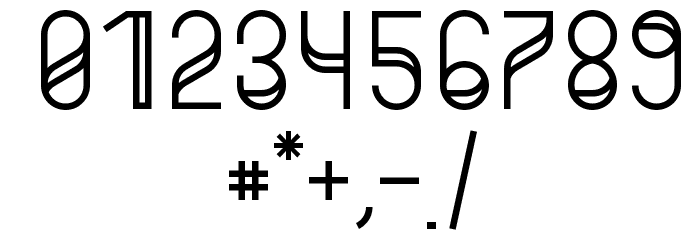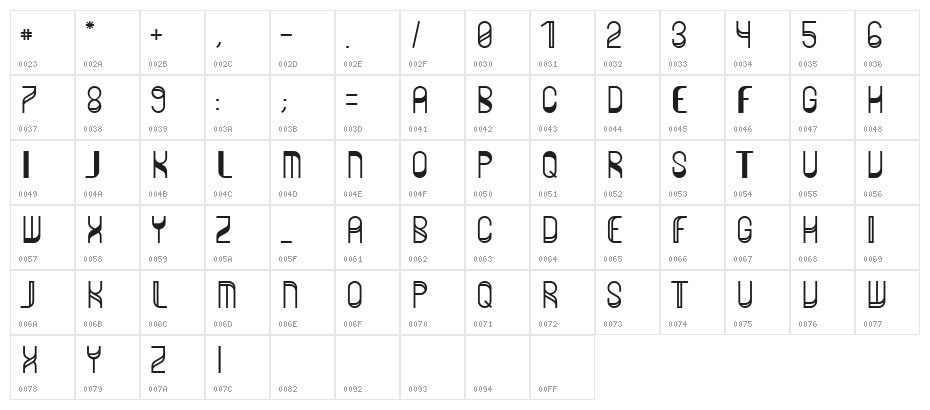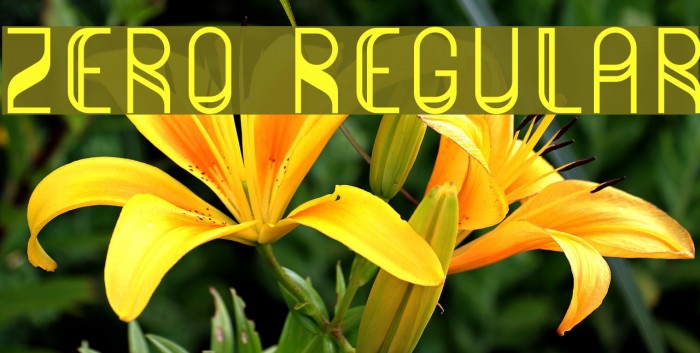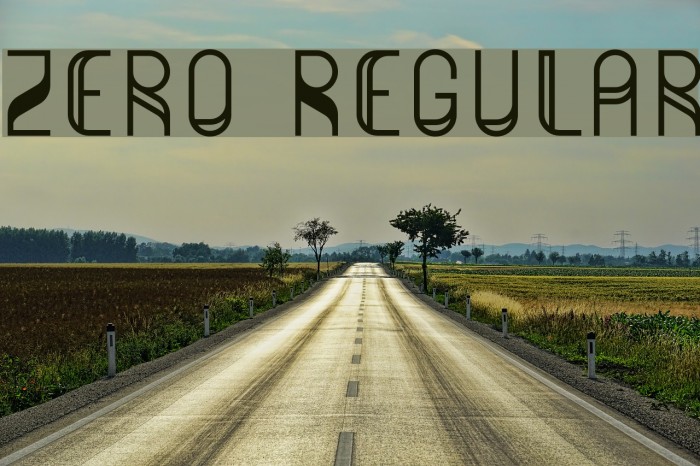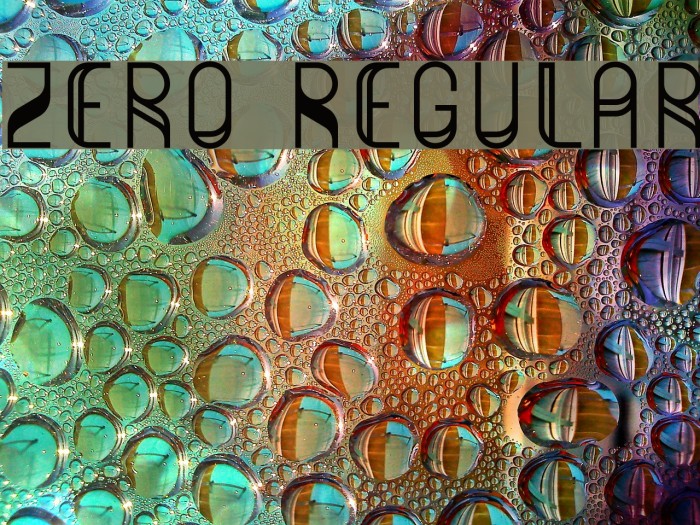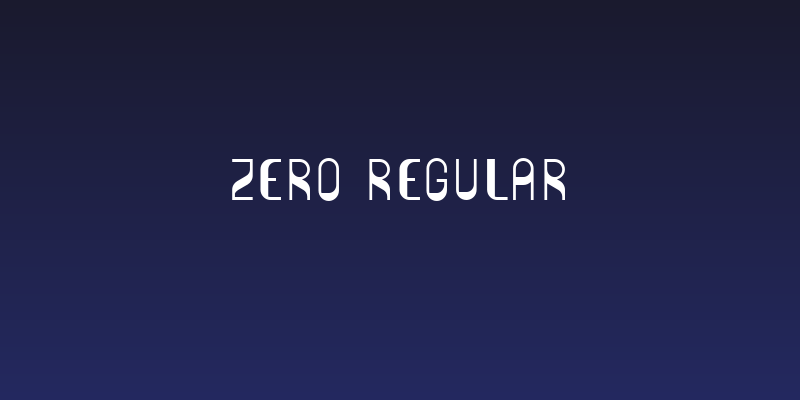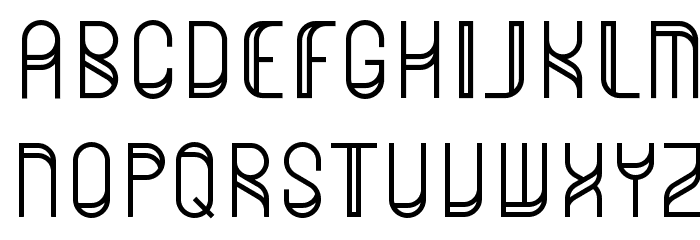
Zero Regular Font
Zero Regular Description
This font features a modern and geometric design with a unique blend of straight lines and curves. The uppercase letters have a distinct architectural feel, with some characters incorporating unexpected angles and cuts. The lowercase letters maintain a consistent style, offering a clean and futuristic look. Numbers are designed with a similar aesthetic, ensuring a cohesive appearance across all characters. Special characters are crafted to match the overall style, making this font versatile for various applications.
| Overall Style | Futuristic, Geometric |
| Use Case | Logos, Headlines, Branding |
| Proposed Projects | Ideal for branding, tech-related designs, futuristic themes, and modern advertising. |